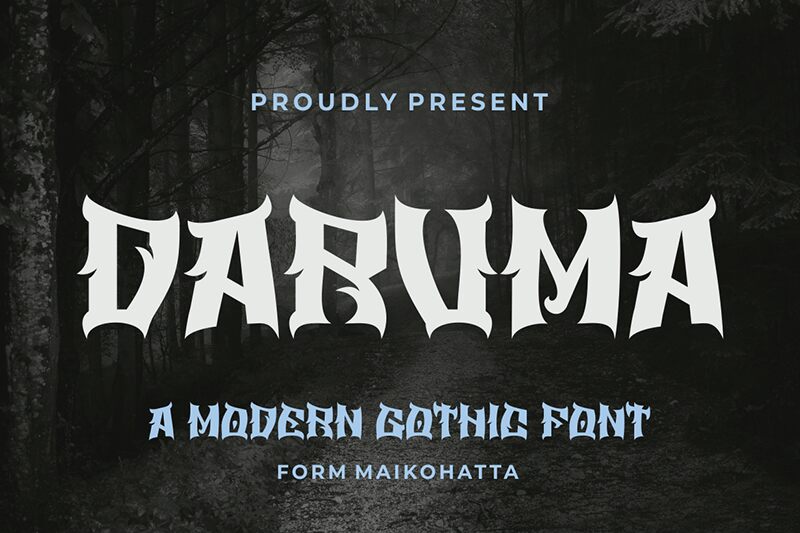
Daruma font family by Gilang Ternadho embraces sharp, intimidating character styles within its design. Its dramatic finish incorporates both medieval influence and contemporary artistry, classifying it as a free font family. This decorative typeface has a high-impact bold impression that guarantees its readability and attractiveness.
Daruma is a valuable font for heading, title, and logotype design in particular. Bold quotes, product packaging, poster designs, apparel designs, and magazine covers also look awesome when designed with these styles.